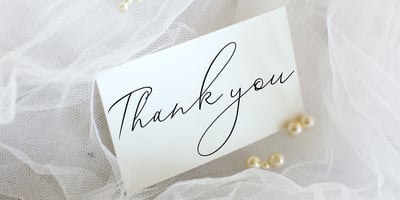
Brokang
Brokang font
Brokang Font Family was designed by Teuku Muslyawan and published by DonyaDesign. Brokang contains 1 styles and family package options. Brokang Script, modern handwritten letters with signature style and quick streaks. This font includes alternative letters. Perfect for greeting cards, branding materials, business cards, quotes, posters, and more! Including many alternative characters. Encoded with PUA Unicode, which allows full access to all additional characters without having to design special software. Mac users can use the Font Book. Windows users can use the Character Map to view and copy one of the additional characters to attach to your favorite text editor. For people who have opentype capable software: Alternatives can be accessed by turning on the “Alternative Style” and “Ligature” buttons in the Photoshop Character panel, or through any software with glyph panels, for example Adobe Illustrator, Photoshop CC, Inkscape.